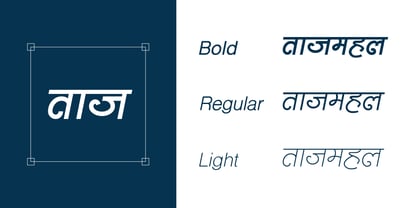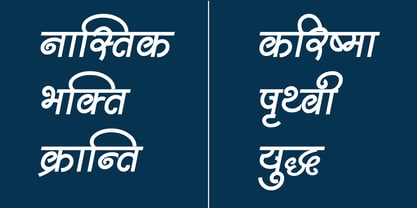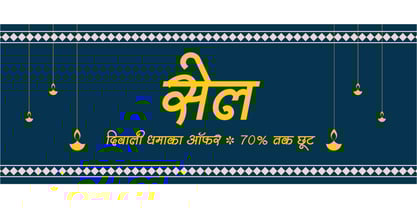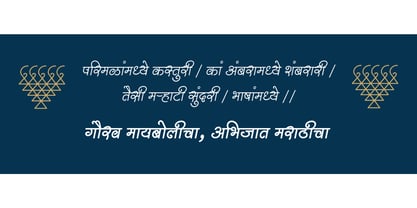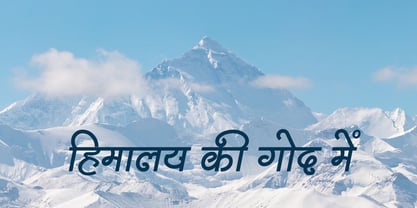
Shree Devanagari 2303
by Modular InfoTech
The Shree Devanagari 2303 Font Family was designed by Modular Infotech and published by Modular InfoTech. Shree Devanagari 2303 contains 6 styles and family package options. More about this family
Shree Devanagari 2303 is an artistic, refined script text font family available in Light, Regular, and Bold weights plus Italics. The weight range makes it flexible for everything from delicate subtext to standout headlines. With its balanced proportions and smooth stroke flow, the typeface adapts across formal and semi-formal contexts. It ensures readability in extended texts while retaining visual grace. The Light weight adds elegance and sophistication, the Regular maintains consistency for daily applications, and the Bold enhances emphasis with authority.
It is perfect for visually appealing cards, Banners, invitation cards, books, and magazines, notices, letter writing where clear text flow is essential. The Bold weight works well for headlines, signage, and advertisements, while the Light weight is effective in editorial layouts and brochures that require a more delicate, polished appearance.
Designers: Modular Infotech
Foundry: Modular InfoTech